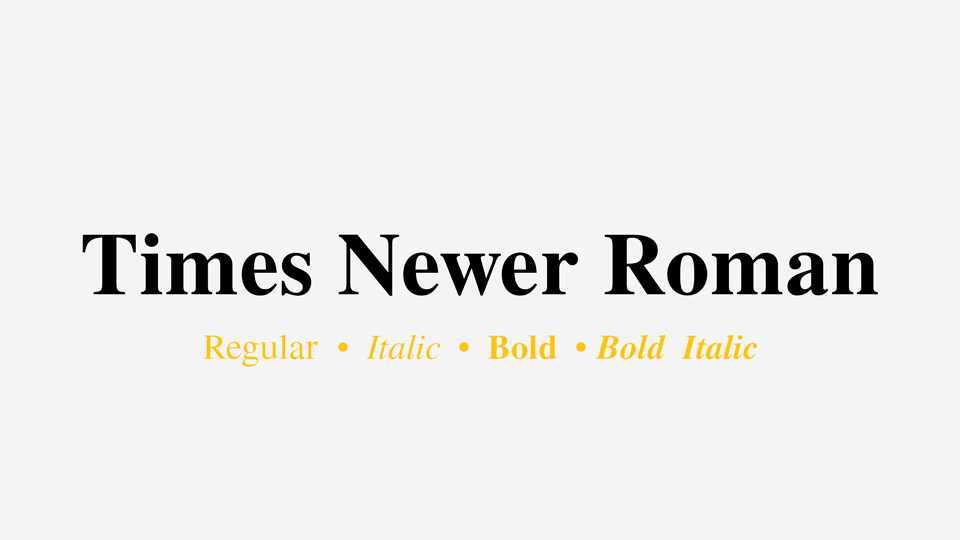
Download Times Newer Roman typeface, a serif font family that looks just like Times New Roman, except each character is 5-10% wider. The design has widened specific letters along the x-axis where it’s least noticeable while maintaining stroke width and harmonious curve modeling.
Designer: MSCHF